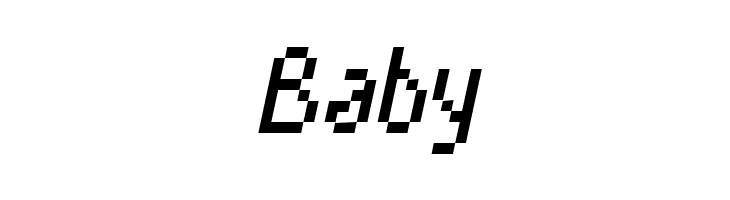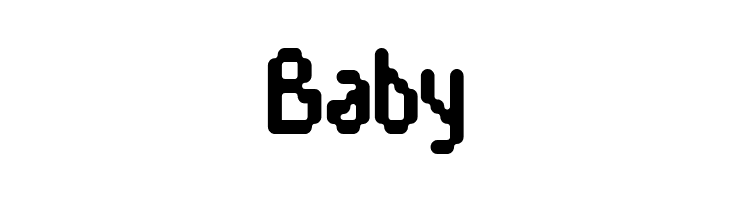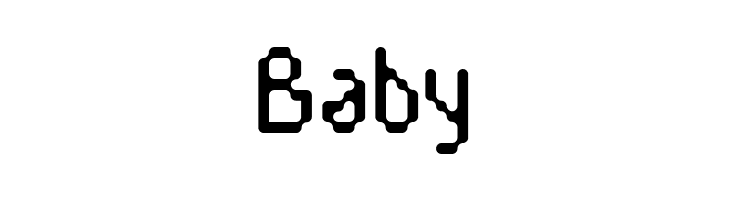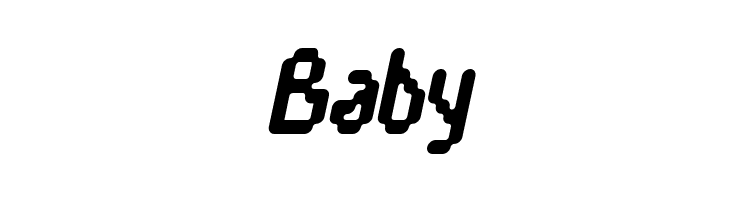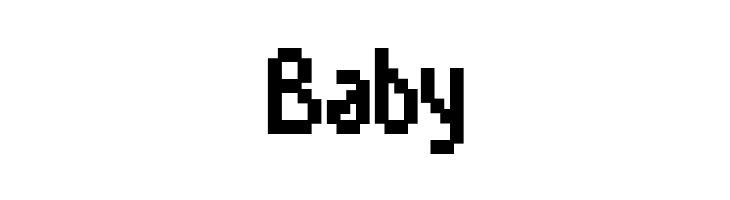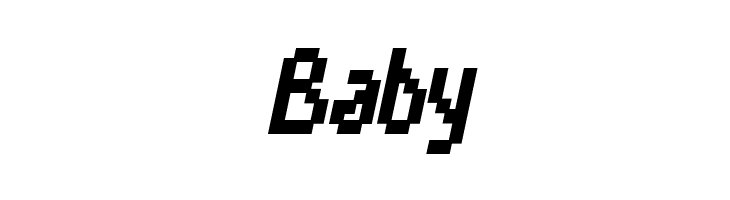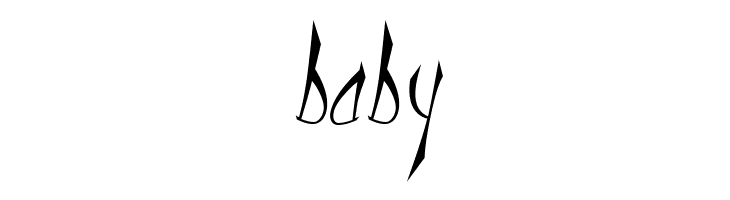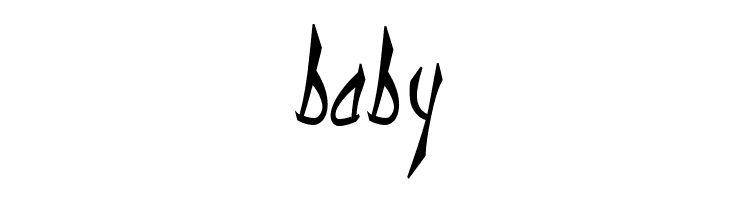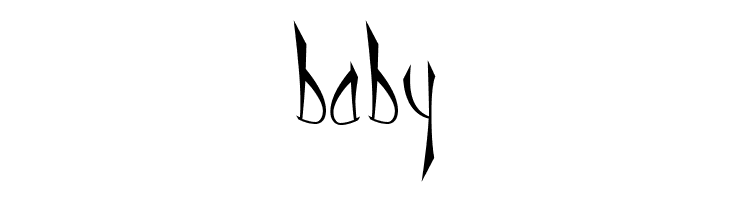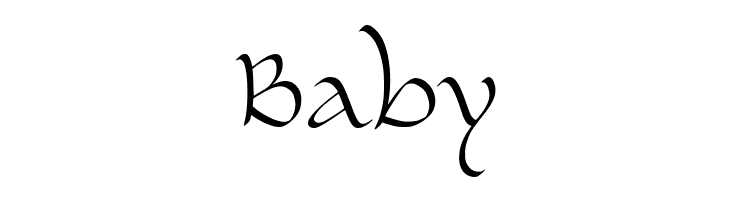
A bold, expressive script font with dynamic curves and high contrast.
A rugged, distressed font with irregular, jagged edges and an organic feel.
A modern, geometric font with clean lines and a minimalist style.
An ornate, medieval-style font with bold, decorative elements and intricate serifs.
An artistic, calligraphic font with flowing strokes and elegant curves.
A pixelated, retro-style font with a blocky, digital appearance.
A bold, italicized pixelated font with a retro digital aesthetic.
A pixelated, italic font with a bold, geometric style.
A rounded, geometric font with a playful and modern style.
A bold, rounded font with a playful and modern style.
A bold, rounded, and italicized font with a playful and modern style.
A bold, rounded, and italicized font with a modern and friendly style.
An elegant script font with flowing, cursive letters and graceful curves.
A lively, handwritten script font with fluid, connected letters.
A bold, playful font with a hand-drawn, quirky style.
A dynamic and edgy font with sharp, angular strokes and a modern flair.
A sharp, angular, and artistic font with a calligraphic flair.
A bold, modern font with high contrast and calligraphic elements.
A bold, dynamic font with sharp, angular lines and a modern flair.
A bold, italicized font with a dynamic and expressive style.
A bold, italicized font with a dynamic, hand-drawn style.
A dynamic, italic font with medium contrast and a modern, expressive style.
A dynamic, italic font with sharp, angular strokes and high contrast.
A modern, high-contrast font with sleek, geometric influences.
A playful, modern font with bold, slightly condensed characters and uniform strokes.
A bold, geometric sans-serif font with rounded edges and uniform width.
A bold, geometric font with a futuristic and modern design.
A modern, geometric font with thin, uniform lines and a minimalist design.
A modern, geometric font with monolinear strokes and rounded edges.
A bold, geometric font with thick, blocky characters for impactful designs.